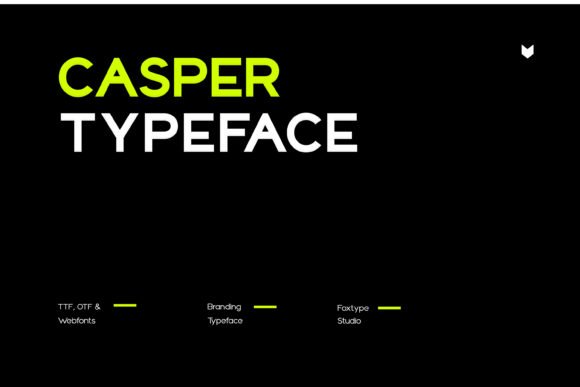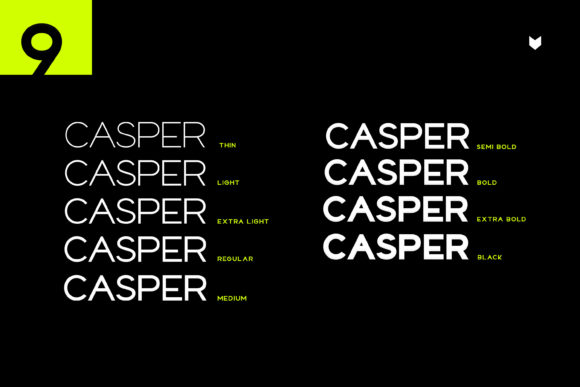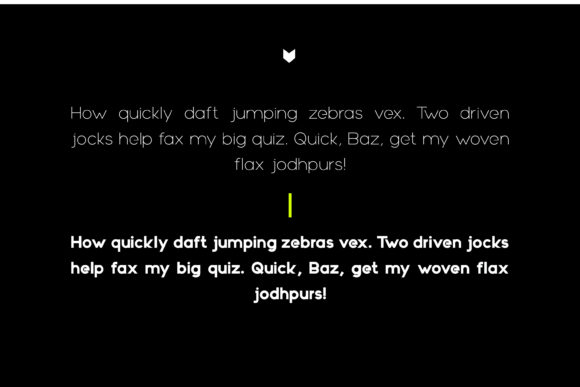
Have you ever stared at a blank page, trying to decide on the perfect font to bring your design to life? We’ve all been there. The struggle is real, especially when you want to convey elegance and sophistication in your work. For designers, finding the right font can be a daunting task, but what if we told you that there’s a font that can make your life easier?
Enter the Casper Font, a sleek and modern sans serif font family that’s perfect for both formal and informal projects. With its versatility and clean design, Casper Font is a valuable addition to any font library. Whether you’re working on a large-scale branding project or a small-scale social media campaign, Casper Font is sure to impress. Its neat and modern design makes it a great choice for designers who want to add a touch of elegance to their work.
Casper Font Key Features
- Font Family: Casper Font is a sans-serif font family.
- Character Count: The font family includes 400+ glyphs, including Latin, Greek, and Cyrillic characters.
- Font Size: Available in multiple font sizes, including 8pt, 10pt, 12pt, 14pt, and 18pt.
- Resolution: Optimized for high-resolution displays, with a recommended resolution of 300 DPI or higher.
- Unique Characteristics: Casper Font features a clean, modern design with a subtle rounded edge, making it suitable for a wide range of applications, including digital and print media.
Casper Font Review
I recently had the chance to work with the Casper font, and I must say it’s a delightful addition to any design project. ✨ One of the things I appreciate most about Casper is its elegant and modern aesthetic. The font is designed to evoke a sense of sophistication and refinement, making it perfect for high-end branding and editorial content.
Another aspect that I enjoy about Casper is its versatility. It comes in a range of weights and styles, allowing designers to easily adapt the font to suit their specific needs. Whether you’re creating a bold headline or a subtle body text, Casper has got you covered. ✨
While Casper is an excellent font, it’s not without its limitations. ⚠️ One of the main drawbacks is that it may not be the best choice for more informal or playful projects. The font’s formal tone may come across as stuffy or pretentious in certain contexts. Additionally, some users may find the font’s subtle nuances difficult to read at smaller sizes.
Conclusion
In conclusion, I highly recommend Casper font for designers looking to add a touch of sophistication and elegance to their projects. While it may not be the best fit for every project, its versatility and refined aesthetic make it a valuable addition to any design toolkit. Overall, I’m impressed with Casper’s performance and would definitely use it again in the future.
- Modern and elegant aesthetic
- Versatile range of weights and styles
- Perfect for high-end branding and editorial content
- May not be suitable for informal or playful projects
- May require larger sizes for optimal readability
Casper Font is ideal for:
- Designing invitations and event materials.
- Creating logos and branding materials.
- Designing digital products and apps.
Alternatives to Casper Font
Open Sans is a clean and modern sans-serif font that is highly legible. It is suitable for digital products, web applications, and print materials. Open Sans is a good alternative to Casper Font for designers who want a more versatile and widely-used font.
Comparison: Open Sans has a similar friendly feel to Casper Font, but it is more widely supported and has a larger character set.
Lato is a sans-serif font that is highly customizable and versatile. It is suitable for use in digital products, web applications, and print materials. Lato is a good alternative to Casper Font for designers who want a more sophisticated and elegant look.
Comparison: Lato has a similar modern feel to Casper Font, but it is more refined and has a larger character set.
Yes, the Casper Font is designed to be highly legible on digital screens. It is optimized for web use and is compatible with most web browsers and devices. The font is also WOFF2 and WOFF compatible, making it easy to integrate into web projects.